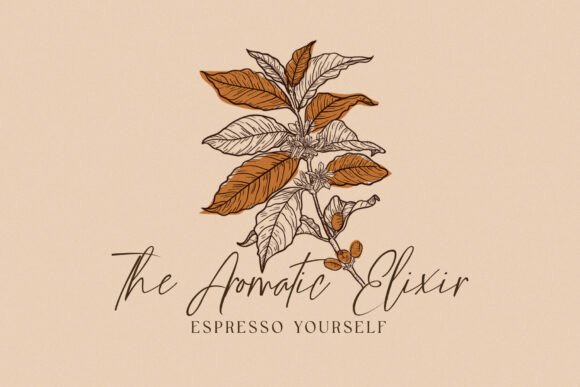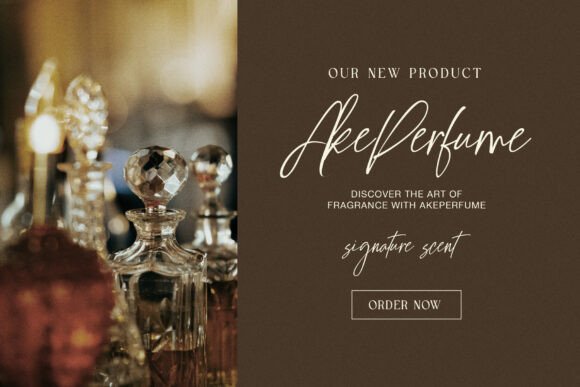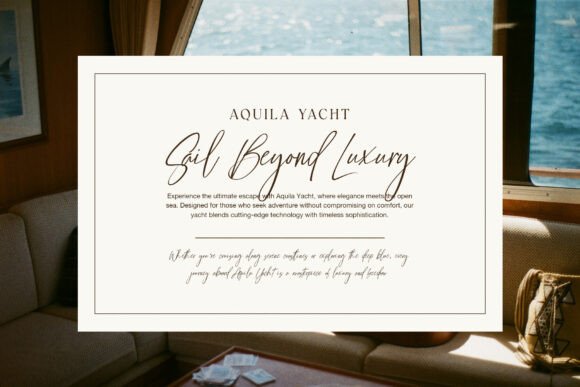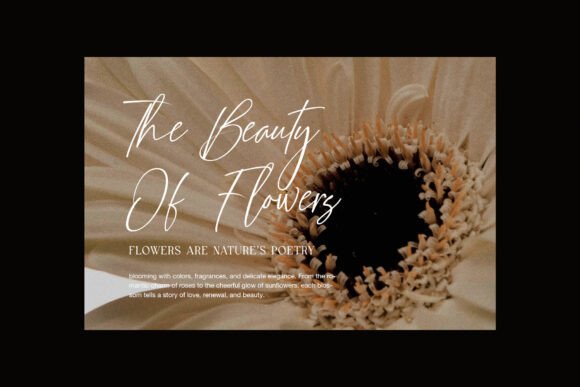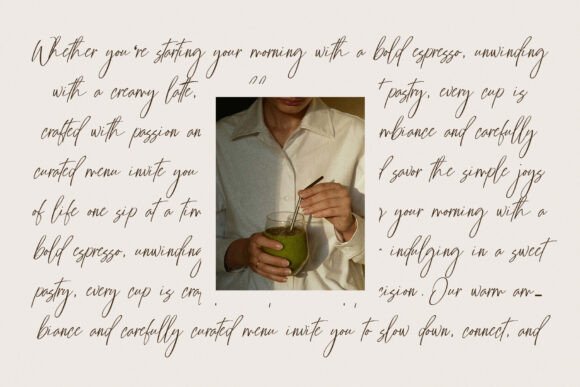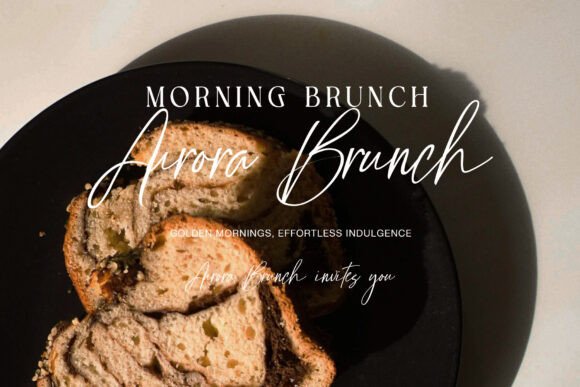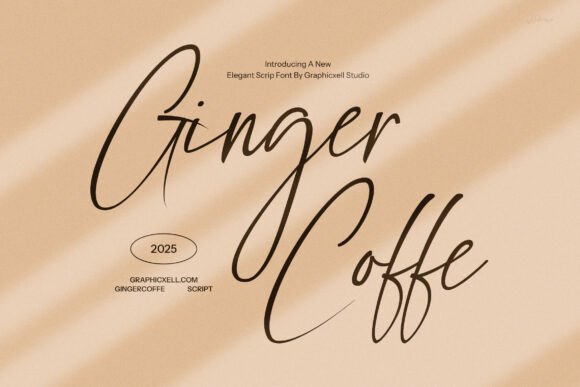
Ginger Coffe Font: Elevate Your Design with Elegance and Sophistication
In the world of typography, few fonts manage to capture the essence of charm, warmth, and elegance as effortlessly as the Ginger Coffe Signature Font. This beautifully refined script typeface is designed to bring a touch of modern sophistication to your designs, making it perfect for creating authentic handwritten signatures, upscale branding, and stylish visual identities.
A Font that Exudes Elegance and Charm
Ginger Coffe is more than just a font; it’s a design statement. Its smooth, flowing style and graceful curves bring a personalized, handcrafted feel to every letter, making it an ideal choice for designers and crafters looking to add a touch of luxury to their work. Whether you’re working on wedding invitations, logo designs, business cards, or magazine covers, Ginger Coffe delivers a polished, elegant finish that stands out in both digital and print formats.
One of the standout features of Ginger Coffe is its natural, free-flowing script, which is enhanced with a wide range of stylistic alternates and ligatures. This gives designers and crafters endless creative possibilities and full control over their design aesthetic. With Ginger Coffe, you can experiment with different styles, create unique combinations, and bring your vision to life.
Ideal for Luxury Branding and More
Ginger Coffe is particularly ideal for luxury branding, fashion blogs, photography watermarks, album artwork, and social media graphics. Its elegant and sophisticated design makes it a perfect fit for high-end brands and designers who want to create a lasting impression. Additionally, its versatility ensures that it can be used across various platforms, from digital to print.
Compatibility and Ease of Use
Key Features of Ginger Coffe Font
- Smooth, flowing script: A beautifully refined script typeface that exudes charm, warmth, and understated elegance.
- Modern sophistication: A touch of modern sophistication that makes it perfect for upscale branding and stylish visual identities.
- Graceful curves: Elegant and refined curves that bring a personalized, handcrafted feel to every letter.
- Stylistic alternates and ligatures: A wide range of stylistic alternates and ligatures that give designers endless creative possibilities.
Tips for Using Ginger Coffe Font
To get the most out of Ginger Coffe, here are a few tips:
- Experiment with different styles: Take advantage of the font’s stylistic alternates and ligatures to create unique combinations.
- Pair with complementary fonts: Pair Ginger Coffe with complementary fonts to create a harmonious design.
- Use for headlines and titles: Use Ginger Coffe for headlines and titles to add a touch of elegance and sophistication.
In conclusion, Ginger Coffe Font is a beautifully refined script typeface that exudes charm, warmth, and understated elegance. Its smooth, flowing style, graceful curves, and rich variety of calligraphic alternates make it perfect for creating authentic handwritten signatures, upscale branding, and stylish visual identities. With its endless creative possibilities, compatibility with popular design software, and ease of use, Ginger Coffe is an ideal choice for designers and crafters looking to elevate their designs with elegance and sophistication.